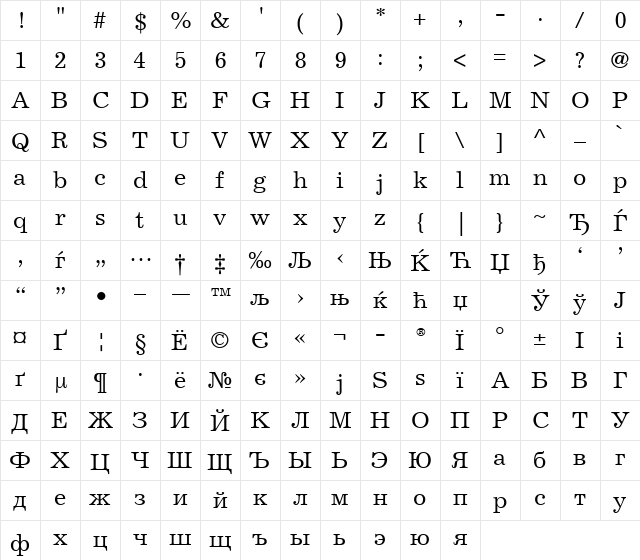
Complete ExcelsiorCyrillicUpright Roman glyph index. Displaying only characters natively supported by ExcelsiorCyrillicUpright Roman font.
ExcelsiorCyrillicUpright is a composed and adaptable typeface that performs quietly and consistently across a wide range of design contexts.